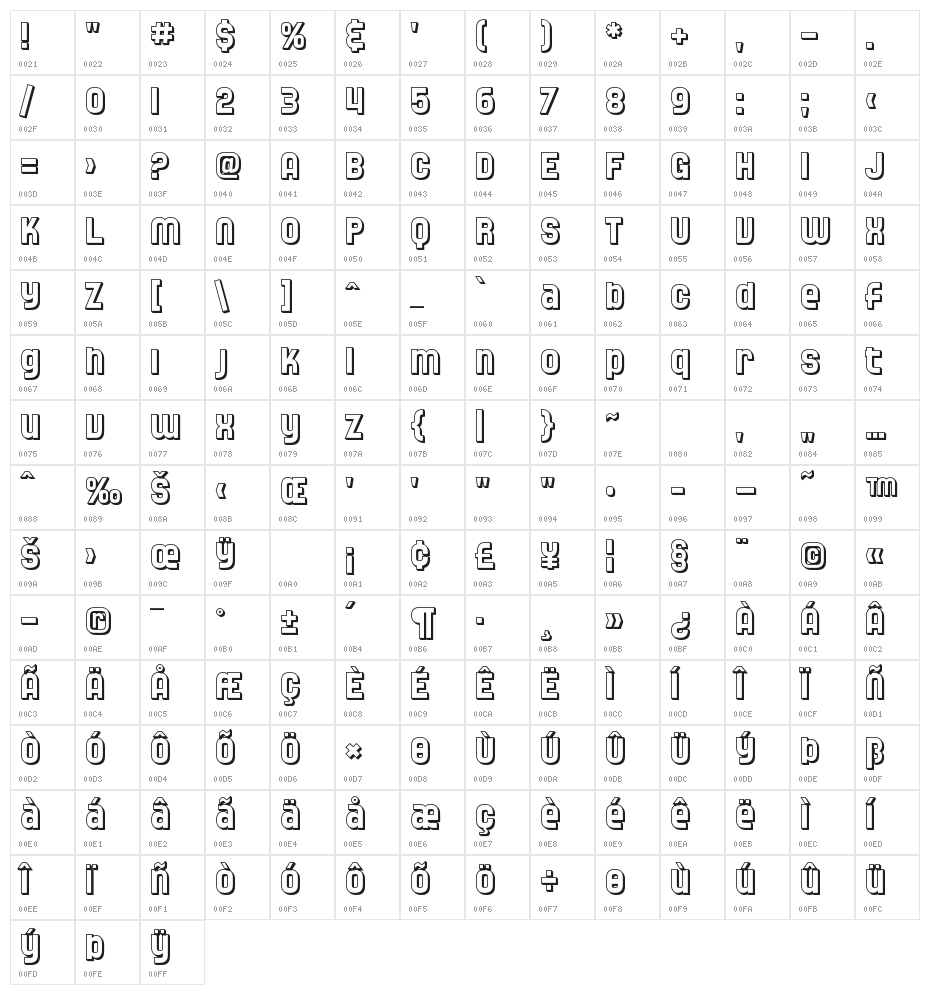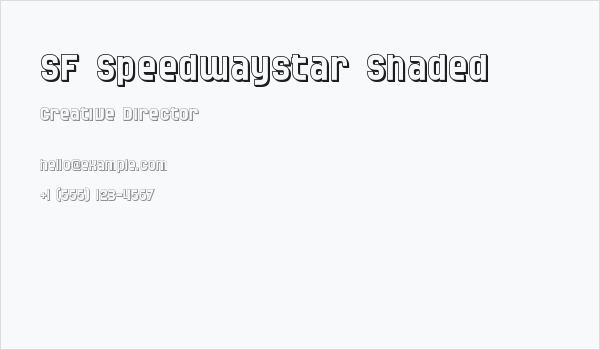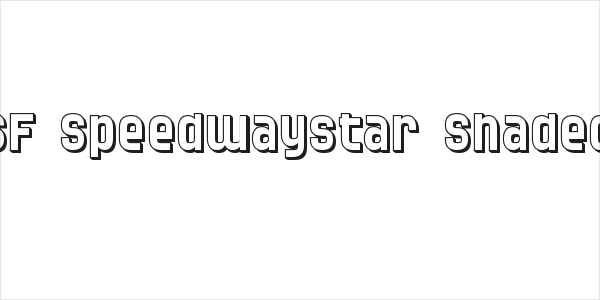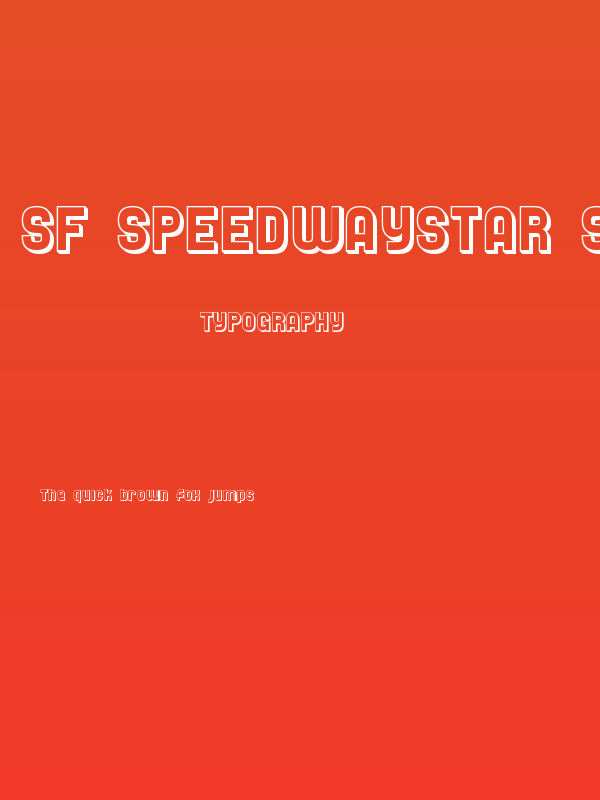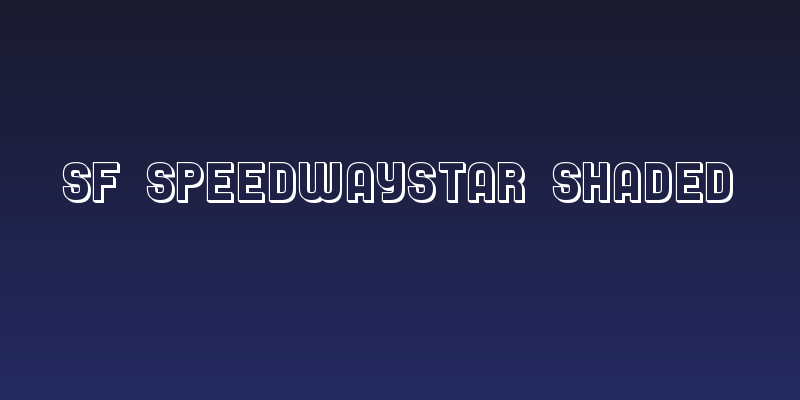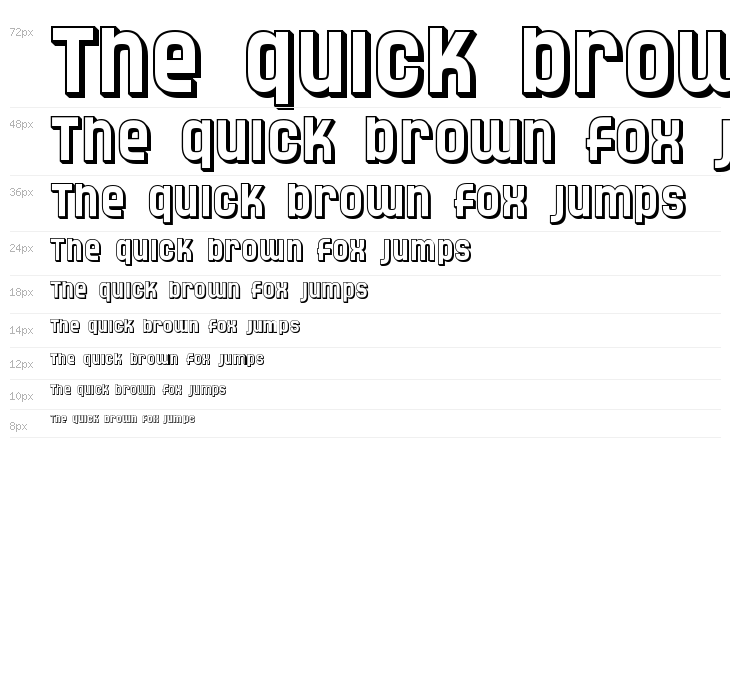
SF Speedwaystar Shaded Font
SF Speedwaystar Shaded Description
This font features a bold, outlined style with a distinct three-dimensional effect, achieved through its shaded design. The characters are uppercase and lowercase, with numerals and a variety of special symbols. The font's geometric structure is consistent, with rounded edges and a uniform stroke width that adds to its legibility. The shading gives it a dynamic and eye-catching appearance, making it suitable for impactful designs. Its playful yet structured form makes it ideal for projects that require a modern and energetic feel.
| Proposed Projects | Ideal for posters, logos, headlines, and any design requiring a bold and dynamic appearance. |